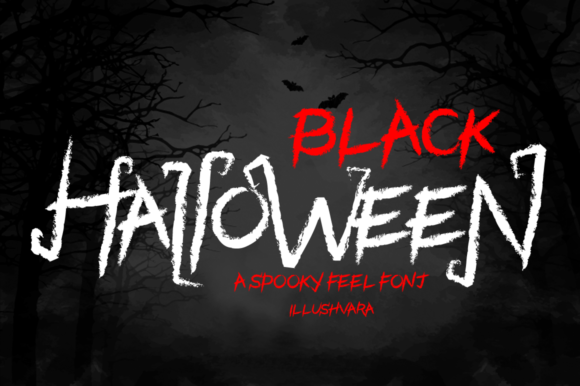
Enter the realm of the macabre with Black Halloween Font, a display font that will cast a spell on your crafting projects. Its dark and twisted characters, inspired by the eerie spirit of Halloween, will bring a touch of spine-tingling charm to your designs.
As the leaves turn crisp and the air grows cold, Black Halloween Font emerges from the depths of darkness, ready to ignite your creativity. It's the perfect companion for crafting projects that demand a spooky twist. Whether you're designing invitations for a haunted house party, creating personalized Halloween cards, or adding a touch of eerie elegance to your home décor, this font will make your projects stand out from the graveyard.
With its sharp, angular lines and haunting curves, Black Halloween Font exudes an aura of mystery and intrigue. Its carefully crafted glyphs, reminiscent of witches' brooms and haunted mansions, will send shivers down the spines of your audience. Imagine the gasps of delight as your friends and family marvel at your hauntingly beautiful creations.
Black Halloween Font is not just visually stunning; it's also incredibly versatile. Its dark, captivating design lends itself to a wide range of crafting projects, from paper crafts and scrapbooking to digital designs and social media posts. Let your imagination run wild as you explore the endless possibilities that await you.
So, embrace the dark side of creativity and let Black Halloween Font cast its magic on your next project. Its enchanting characters will transform your designs into mesmerizing works of art, leaving a lasting impression on all who behold them. Unleash your inner ghoul and let the spooky spirit of Halloween flow through your fingers as you create projects that are both haunting and enchanting.